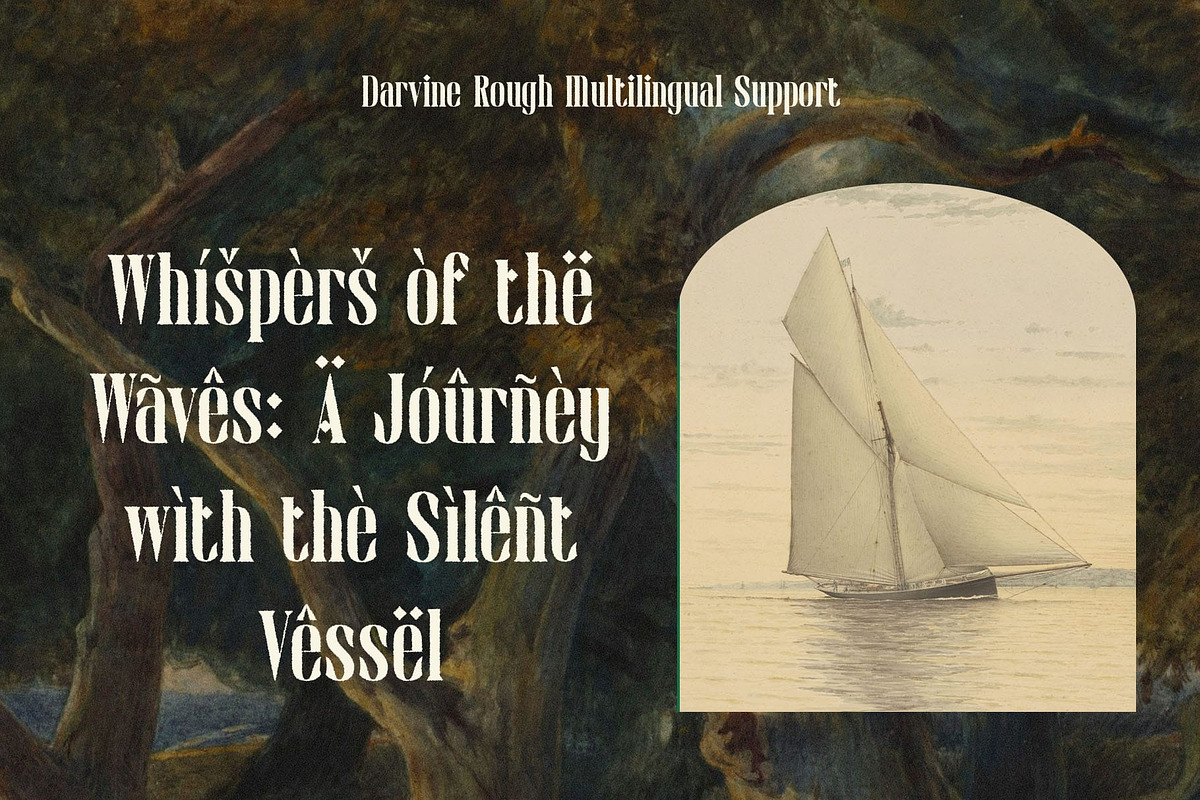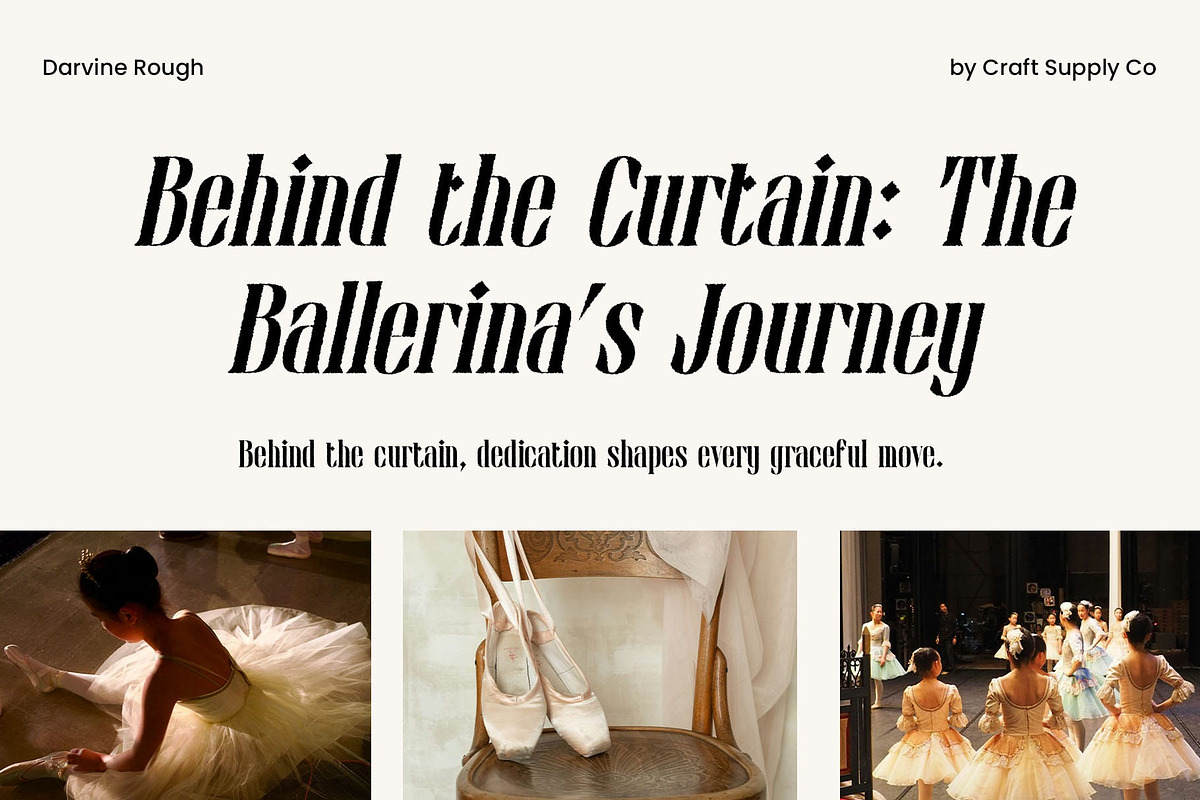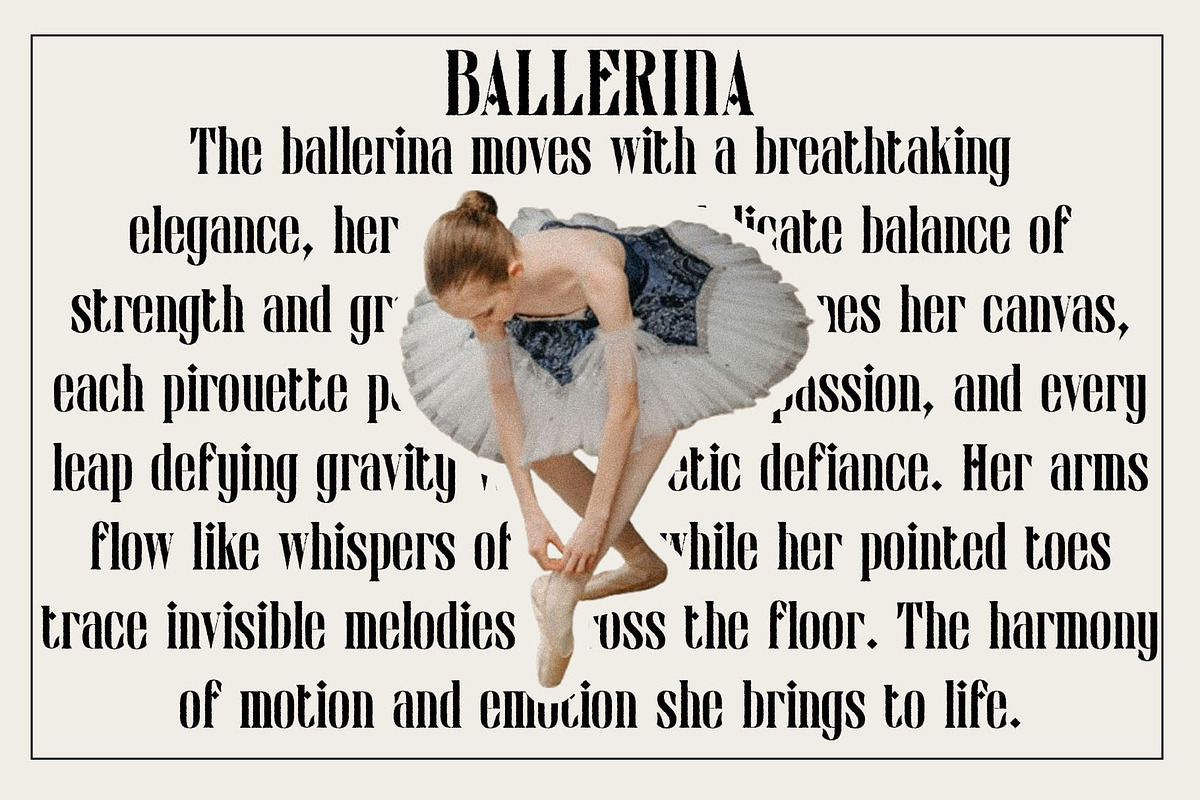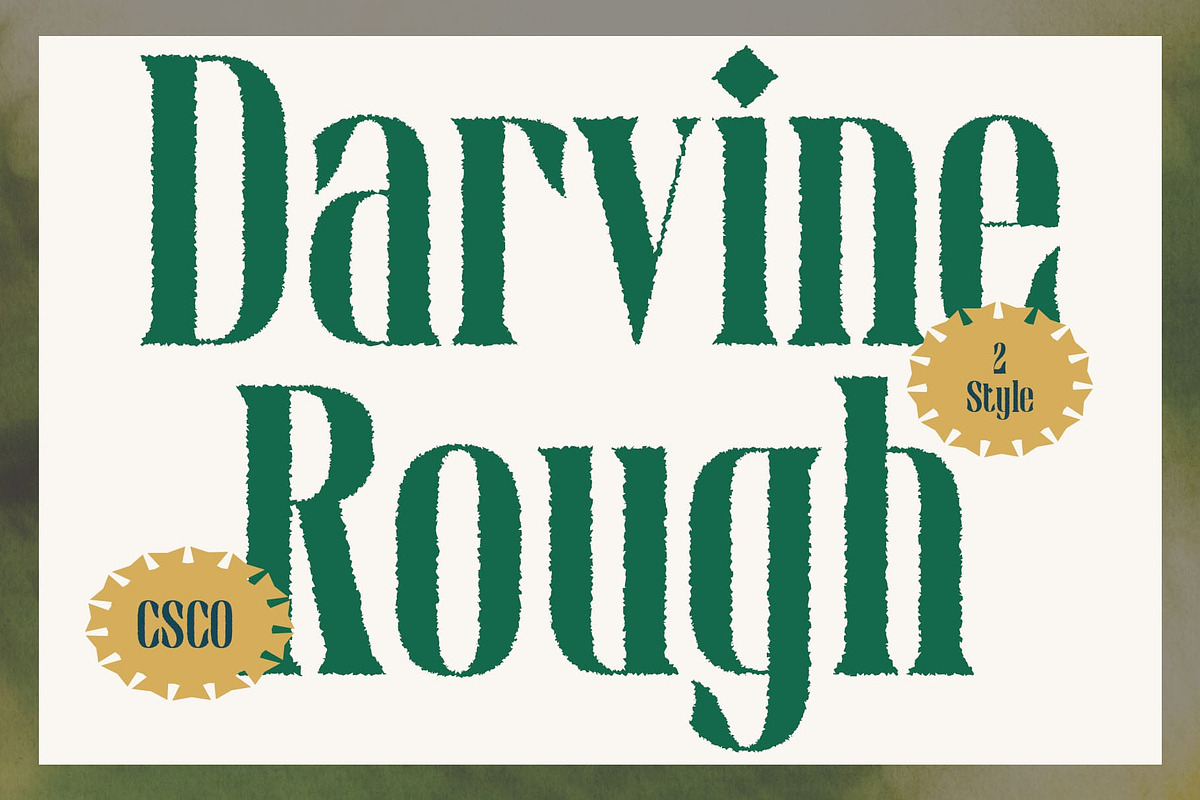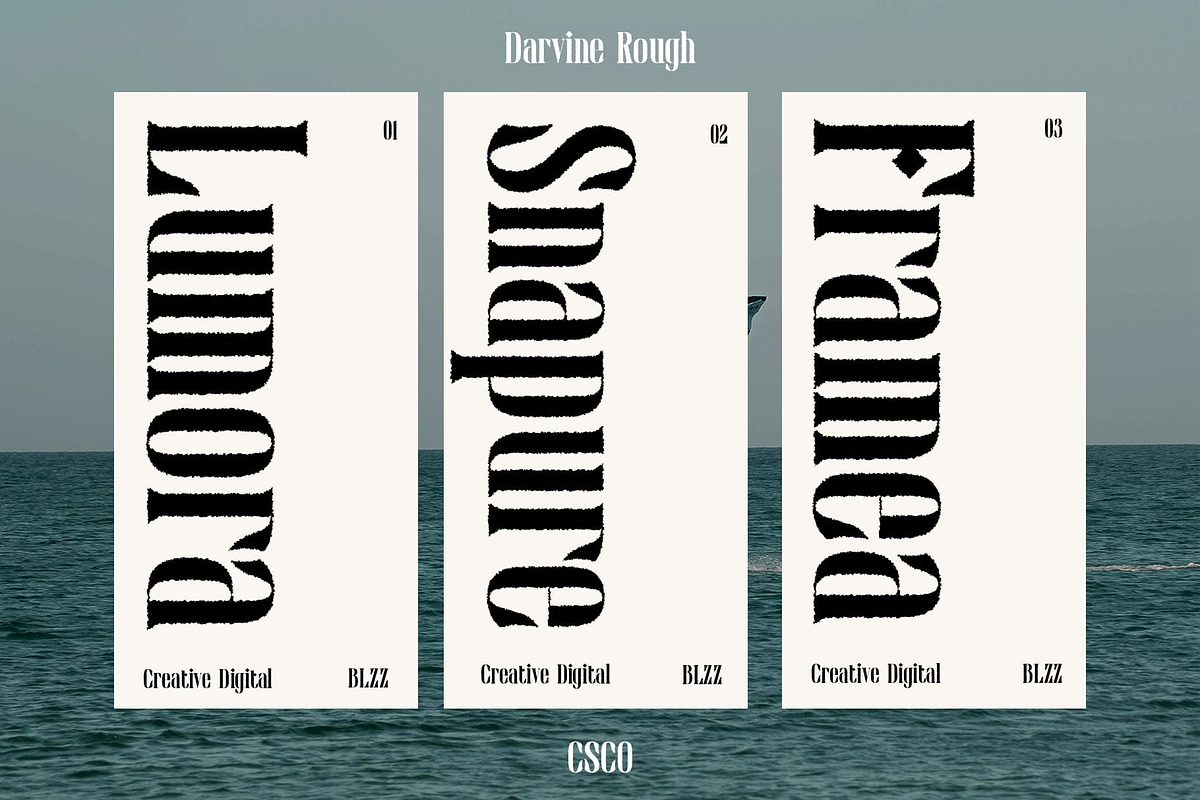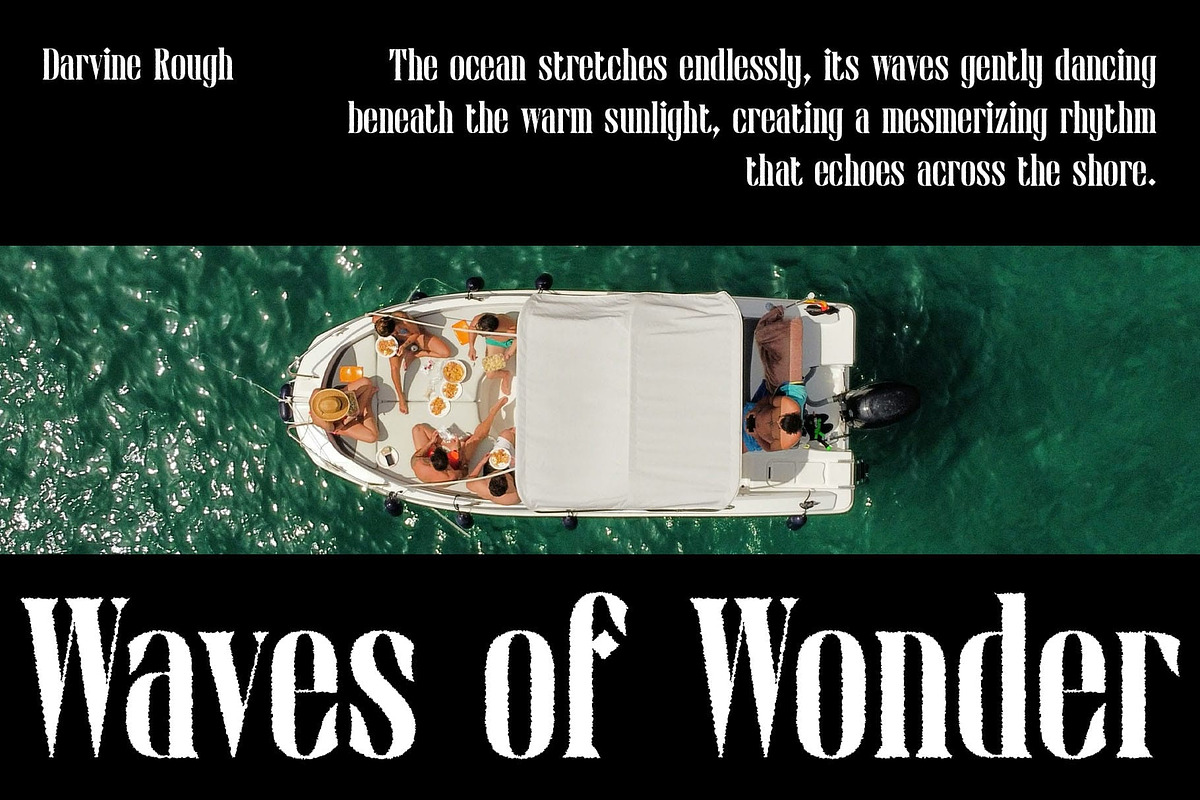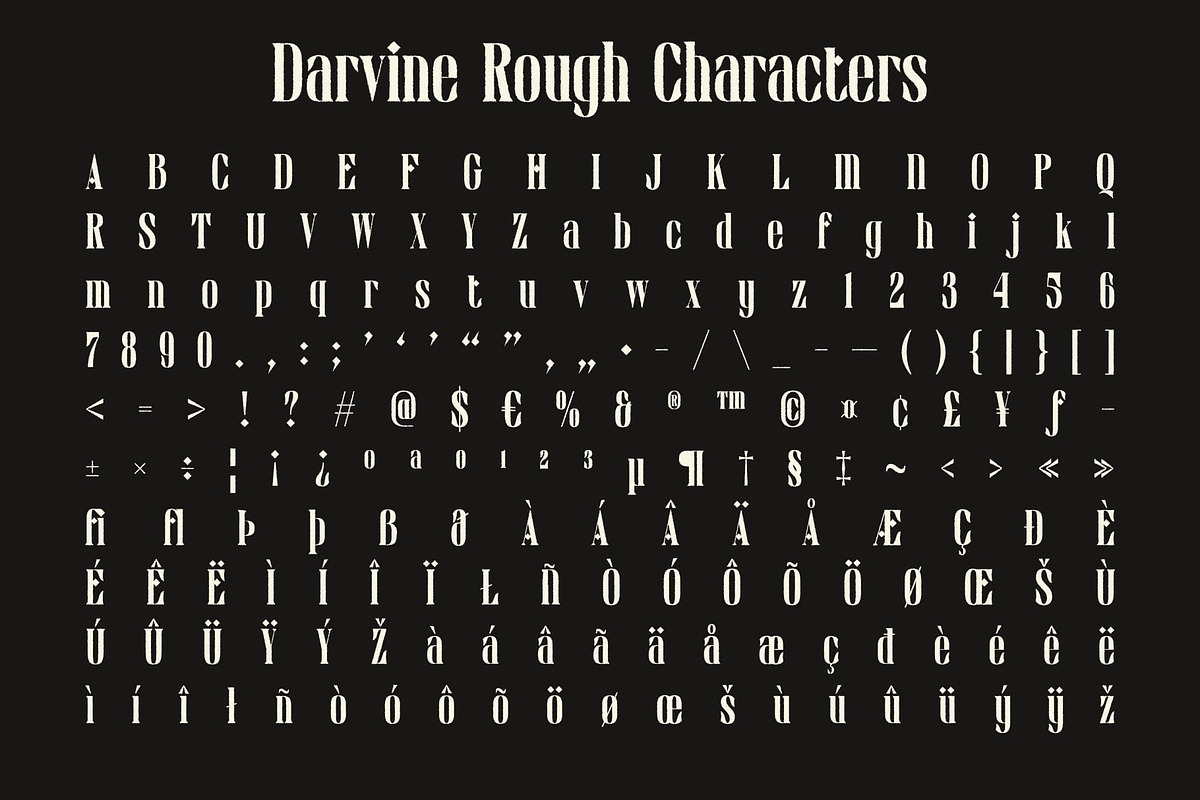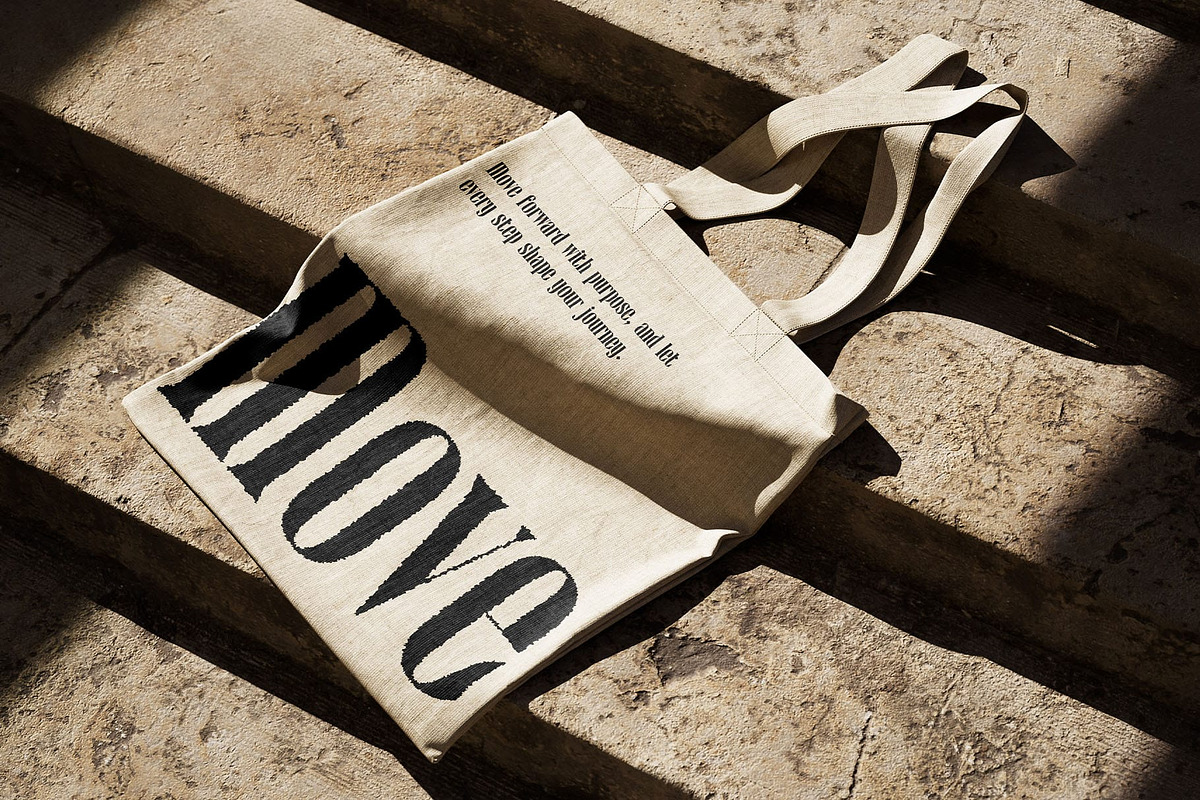
Darvine Rough
Darvine Rough Font: Where Modern Elegance Meets Organic Texture
Modern Serif Font with a Condensed and Minimalist Design Darvine Rough is a modern serif font featuring a condensed and minimalist design. Its slim, streamlined letterforms convey sophistication and efficiency, making it perfect for contemporary layouts. The serif details maintain a timeless elegance, offering a balance between classic and modern aesthetics.
Rough Effect for Authentic Character What sets Darvine Rough apart is its subtle rough effect, which adds a natural, organic texture to the font. This detail softens the clean lines, introducing a casual yet professional feel. The textured look lends authenticity and uniqueness, making the font stand out in creative projects.
Ideal for Versatile Design Applications Darvine Rough excels in various applications, from branding to editorial work. Its condensed form ensures optimal space usage, while the textured effect creates visual interest, making it suitable for logos, packaging, magazine layouts, and more.
Perfect for Contemporary Designs with a Unique Edge This font is ideal for projects that aim to combine modern minimalism with an expressive, handcrafted touch. Whether for creative branding or sophisticated editorial designs, Darvine Rough delivers style and character in equal measure.
- Darvine Rough Regular
- Darvine Rough Italic